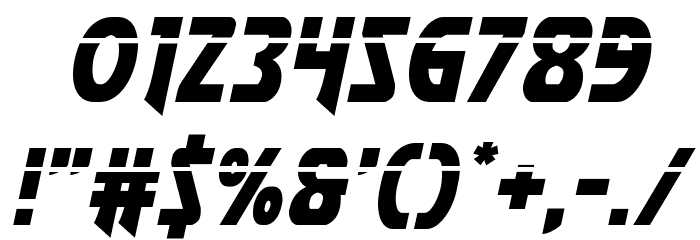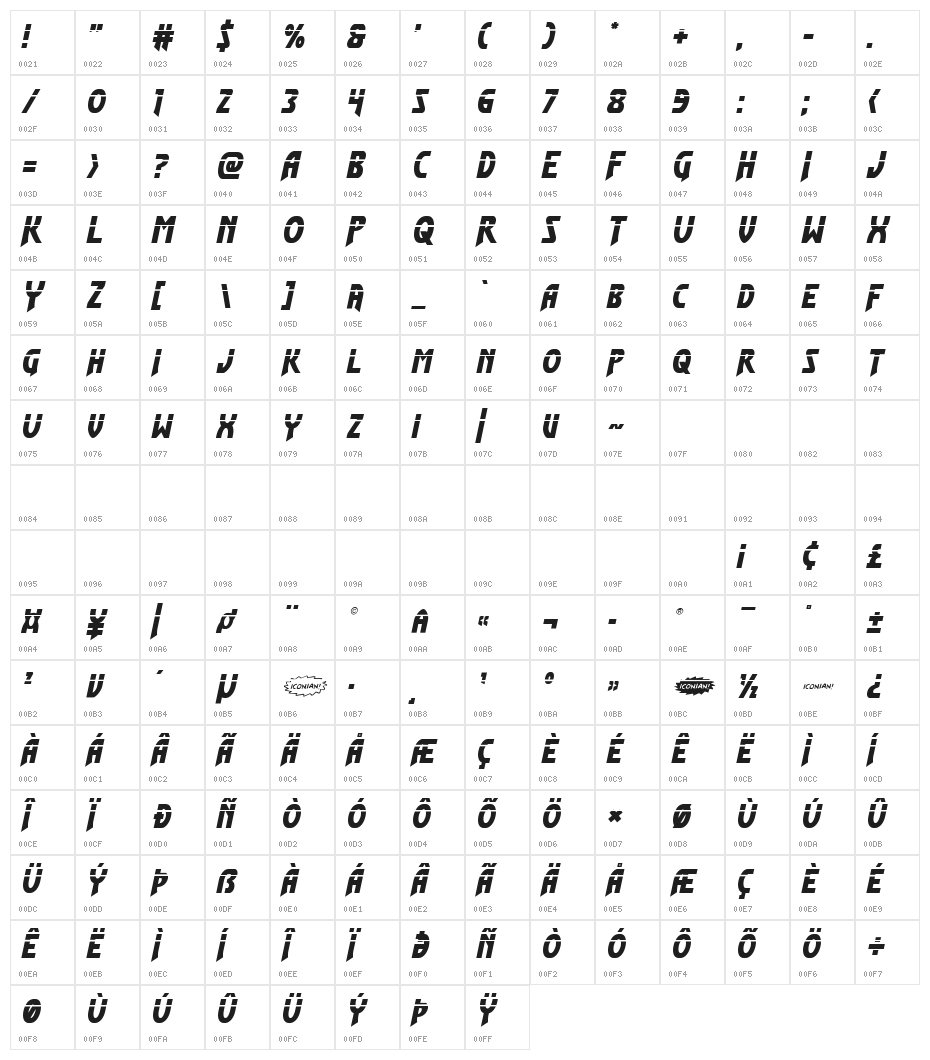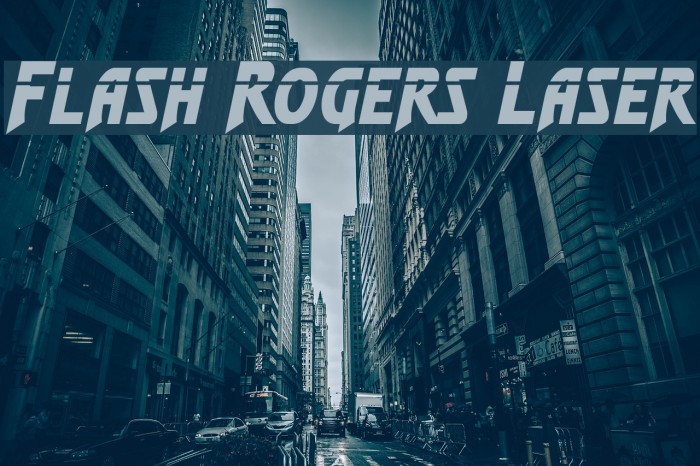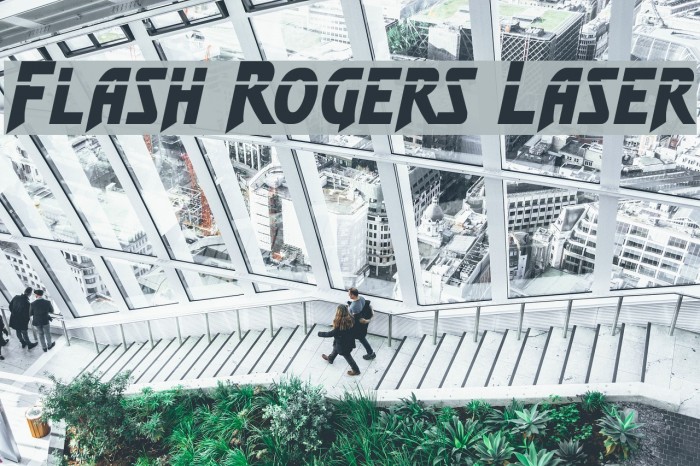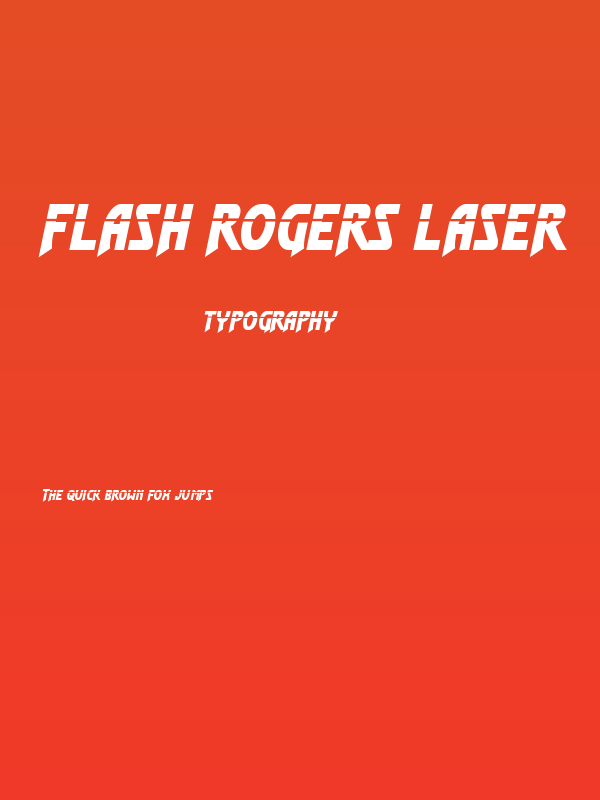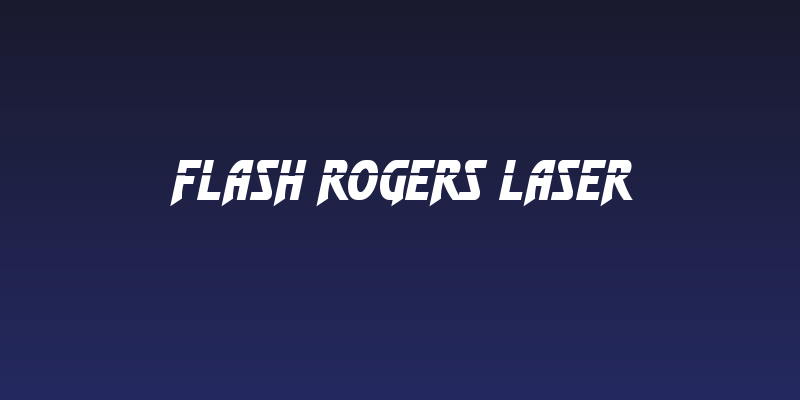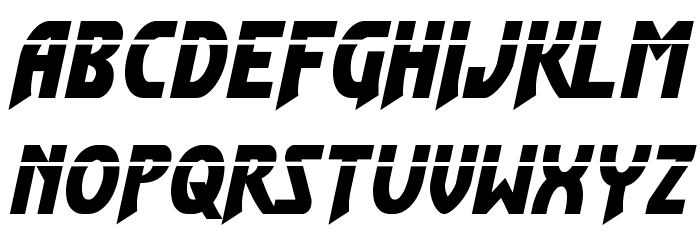
Flash Rogers Laser Font
Flash Rogers Laser Description
This dynamic and bold typeface features sharp, angular lines and a futuristic aesthetic. The characters are designed with a distinct slant, giving them a sense of motion and speed. The uppercase letters are particularly striking, with exaggerated serifs and a unique cut-through effect that adds depth and dimension. The numerals and special characters maintain this energetic style, making the font ideal for eye-catching designs. Its bold presence is perfect for projects that require a modern and edgy look.
| Proposed Projects | Ideal for sports branding, video game titles, sci-fi movie posters, and dynamic logo designs. |